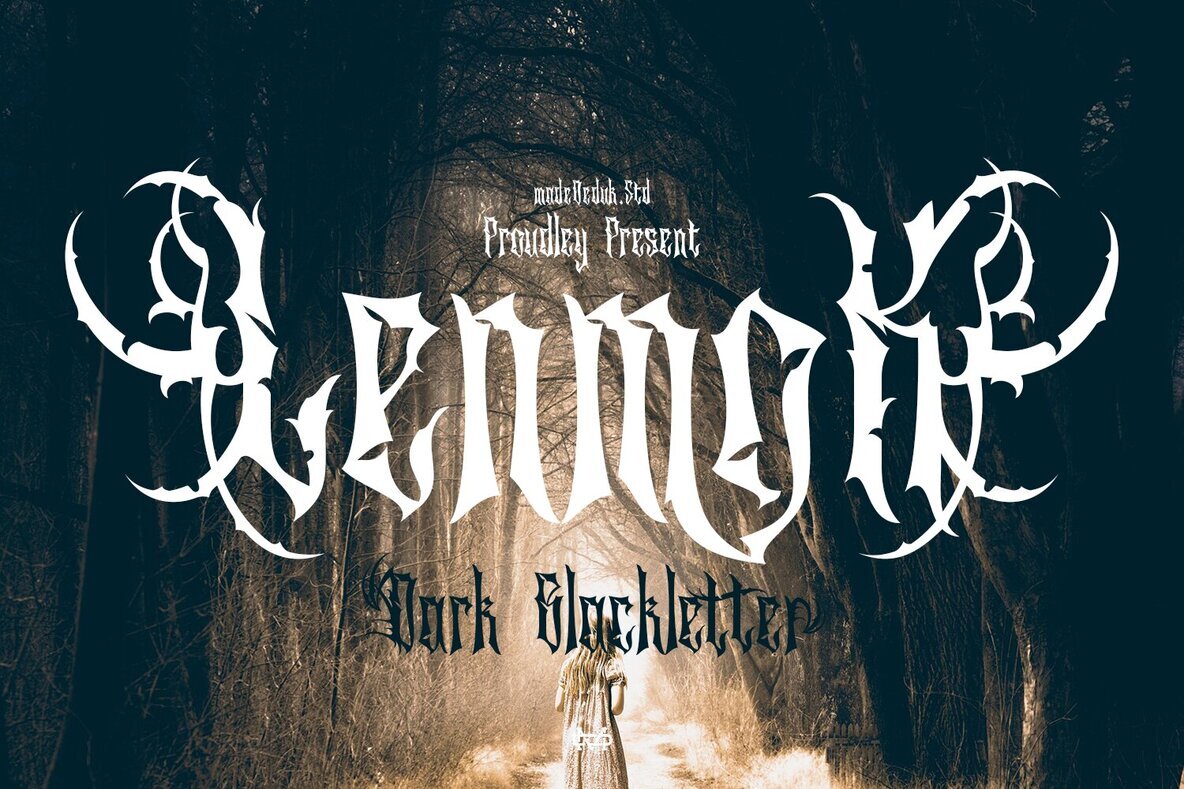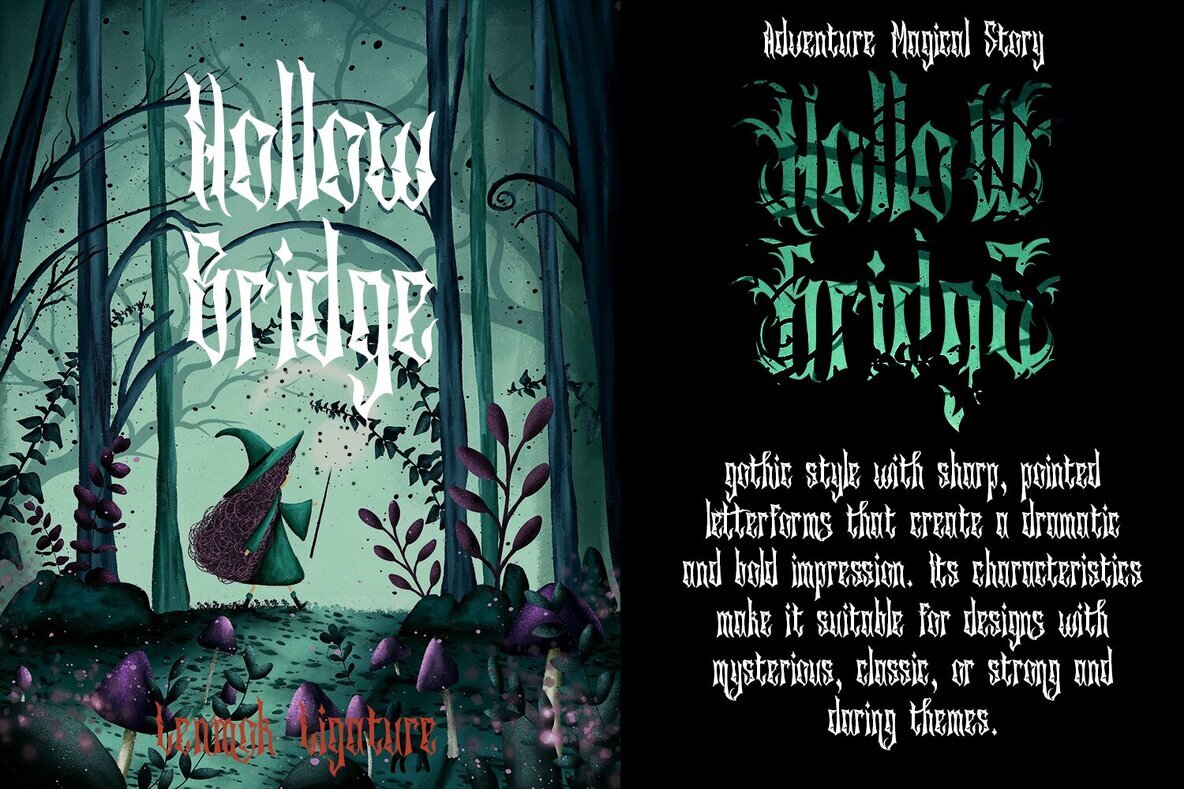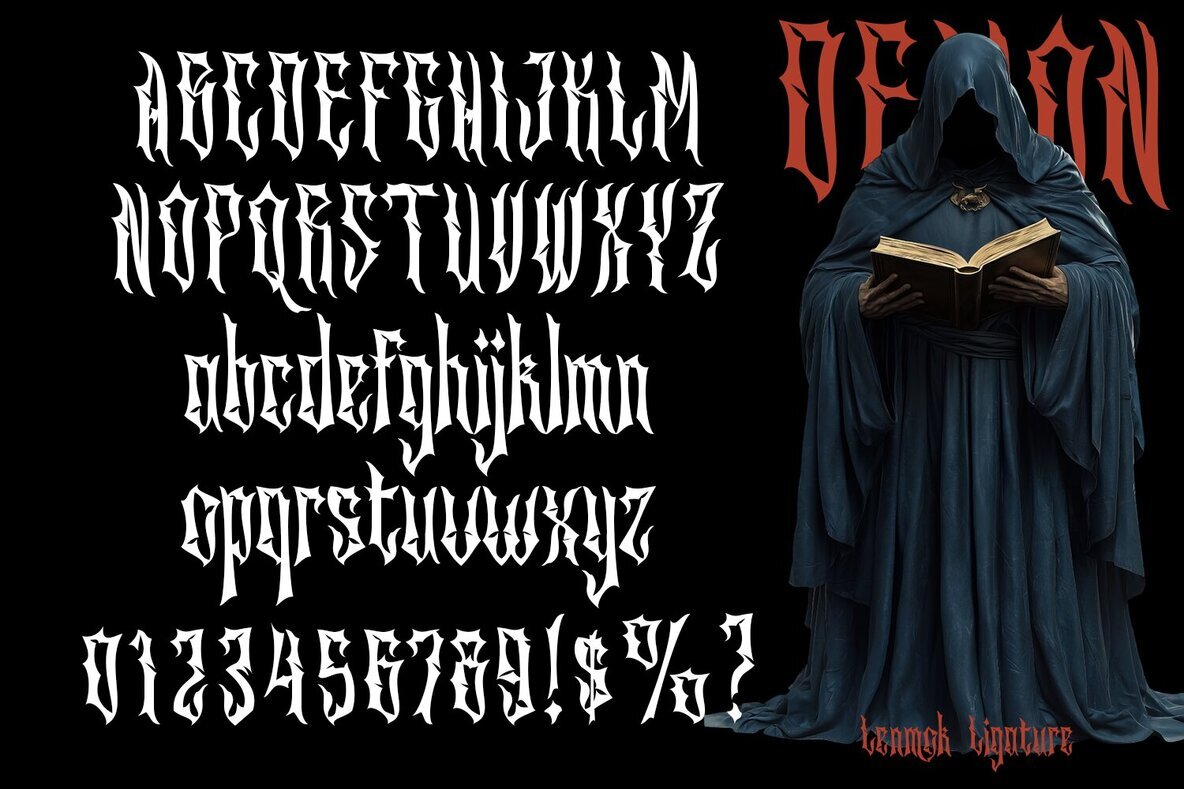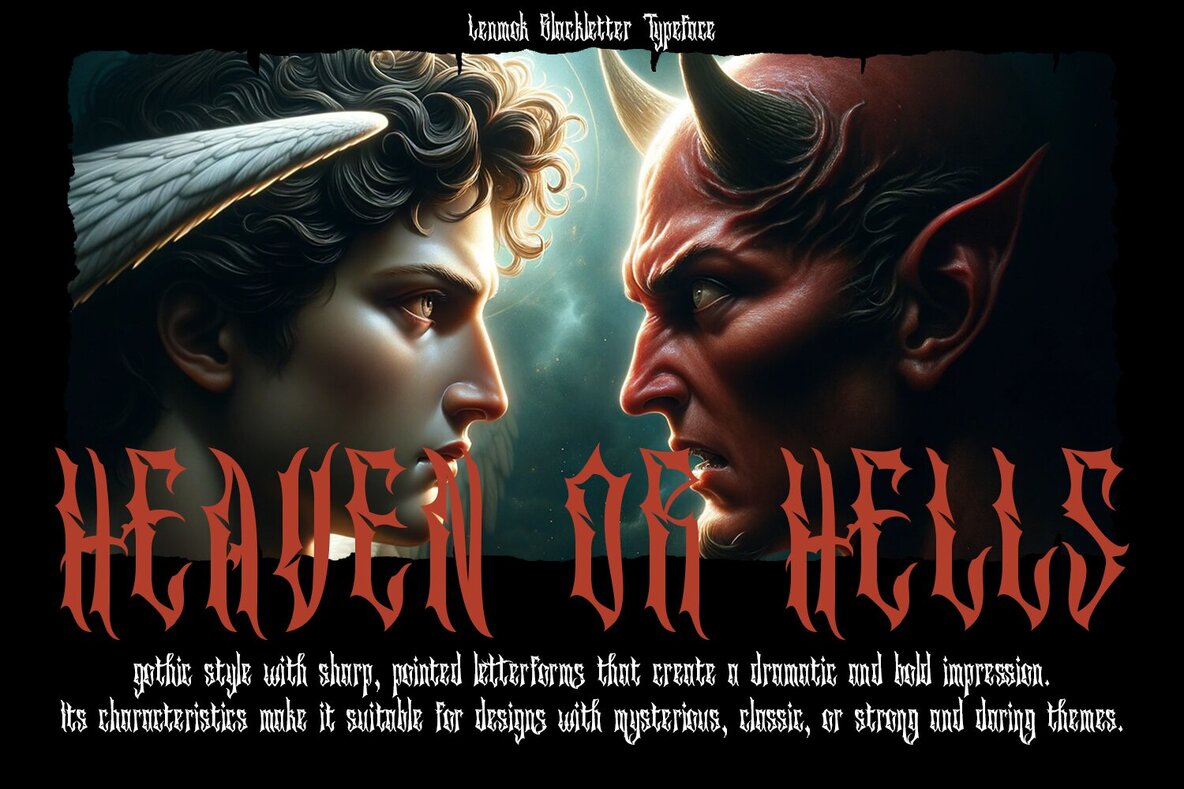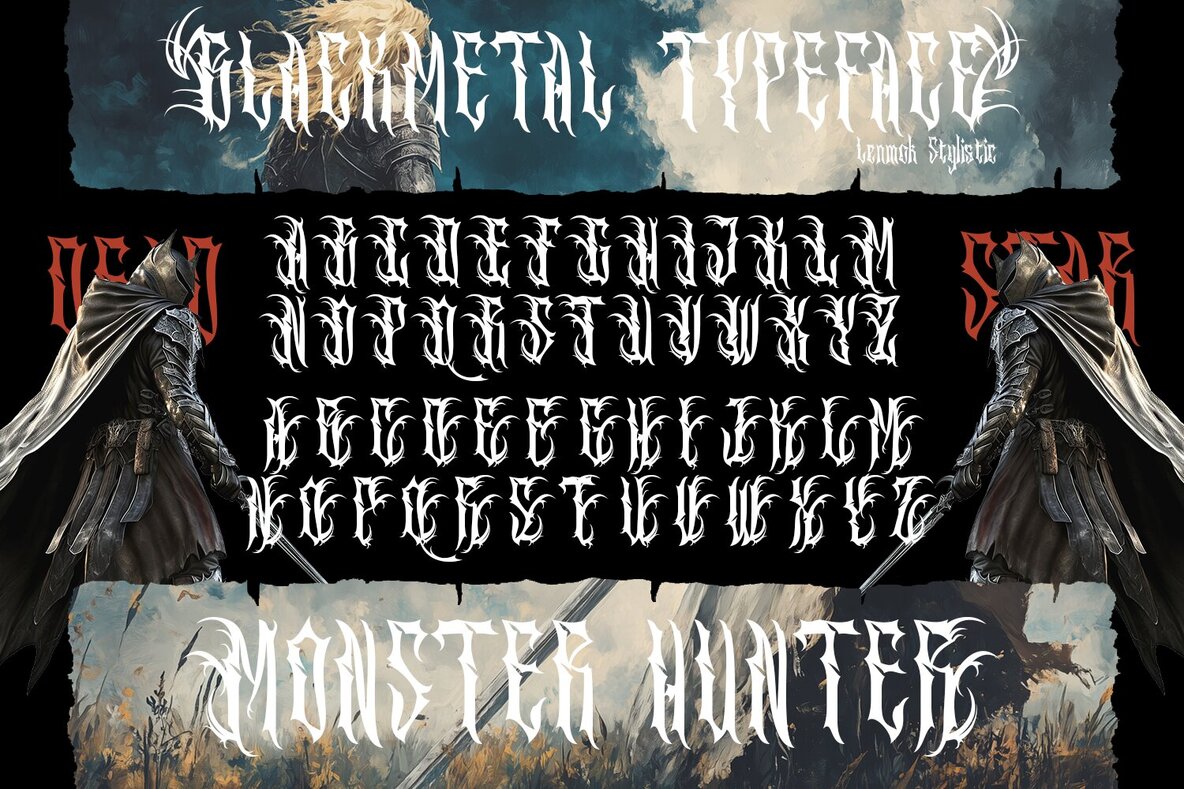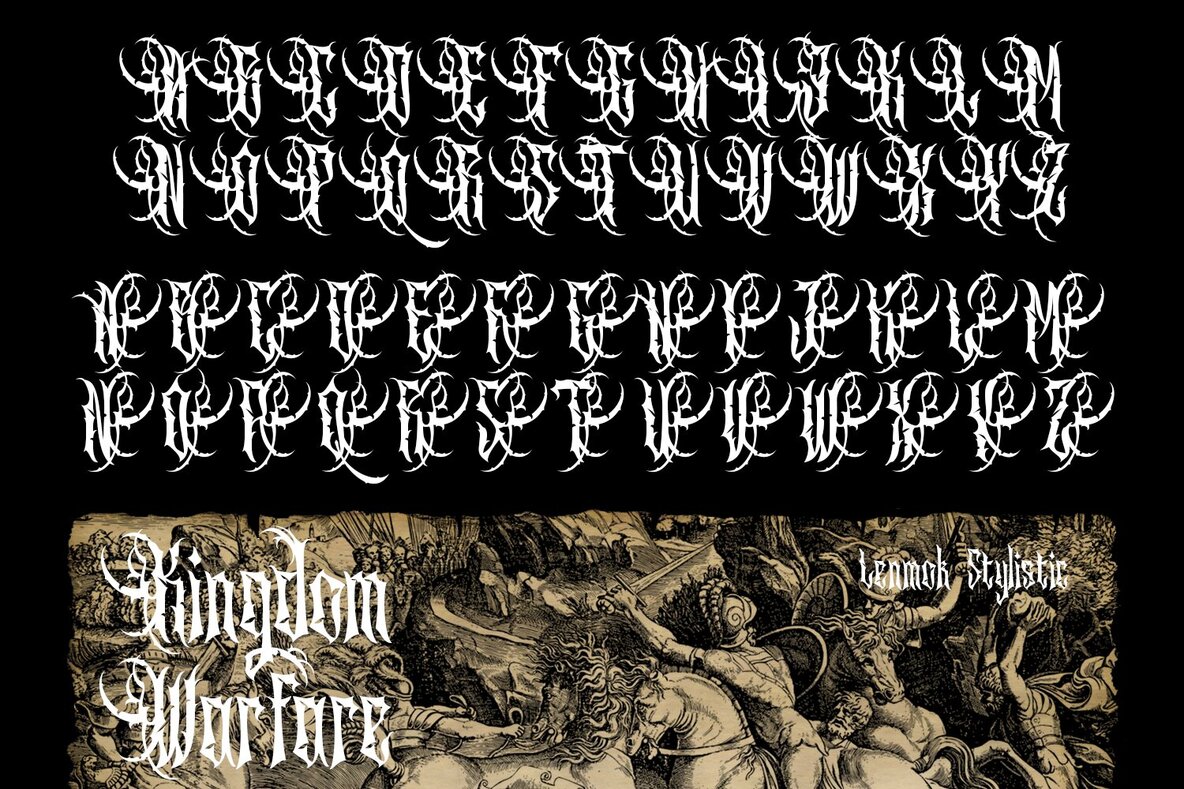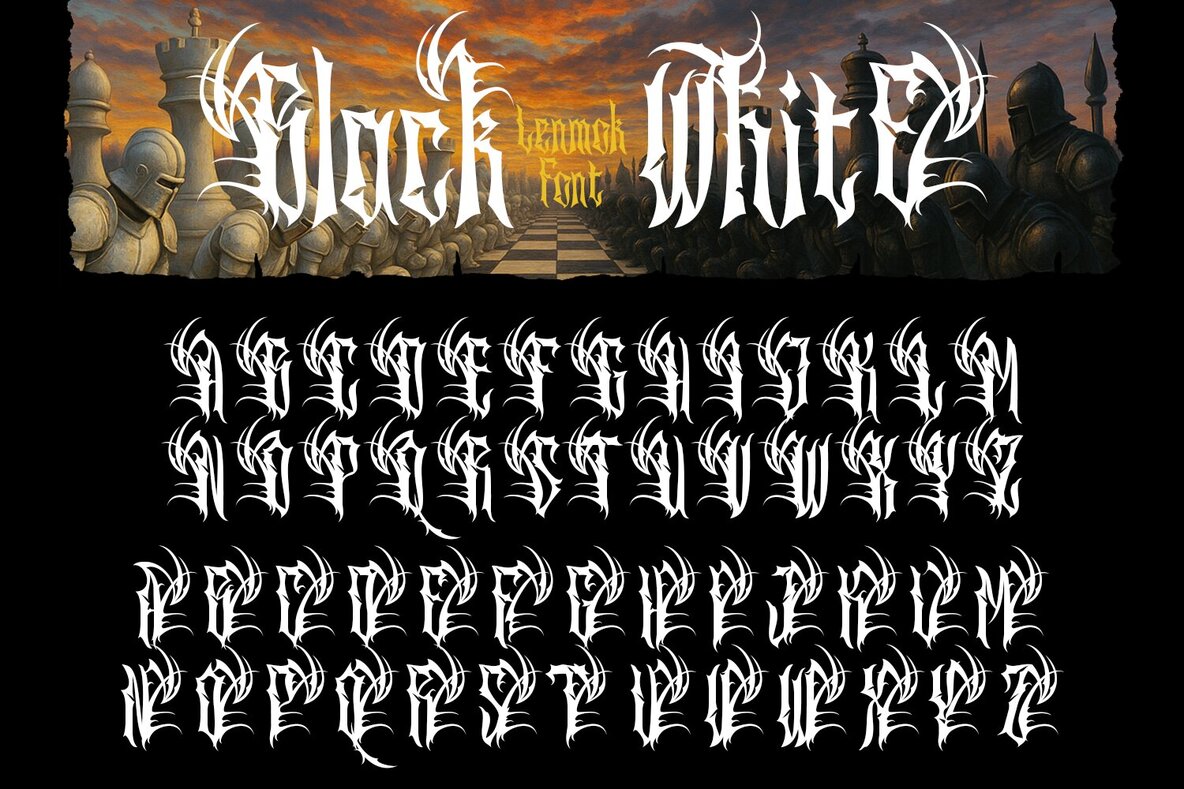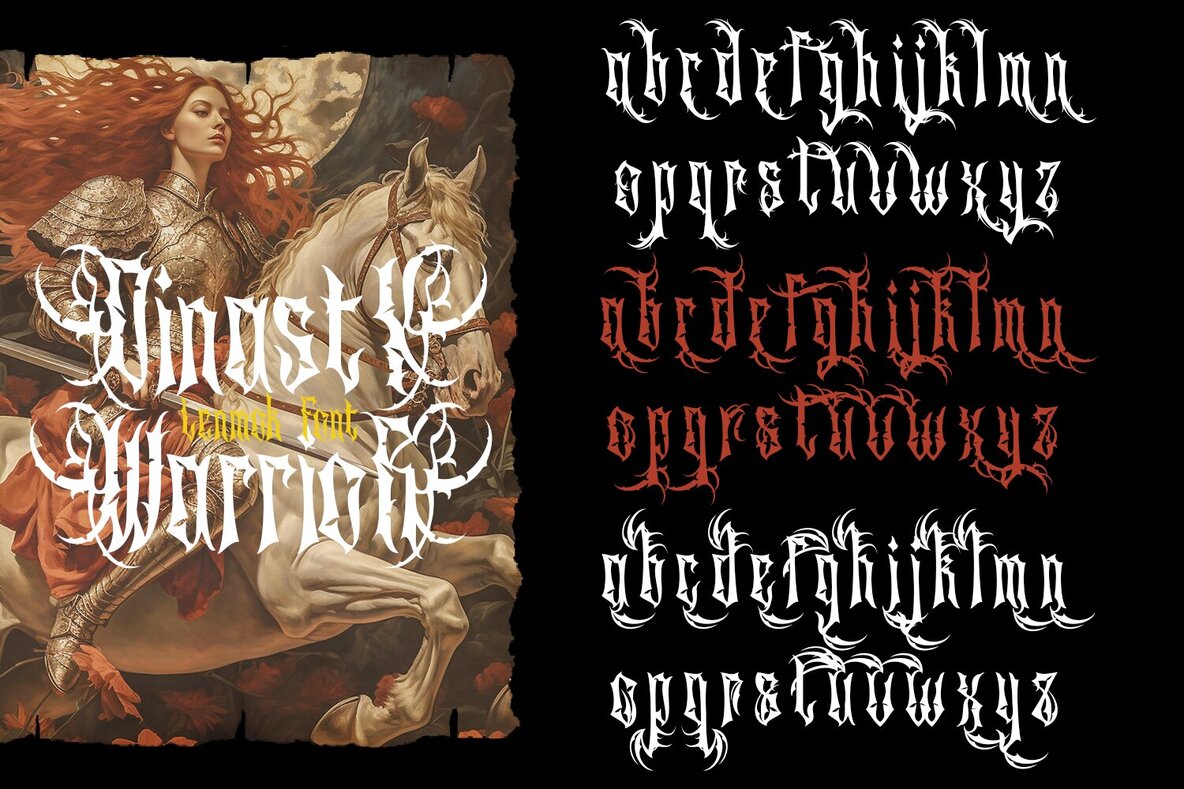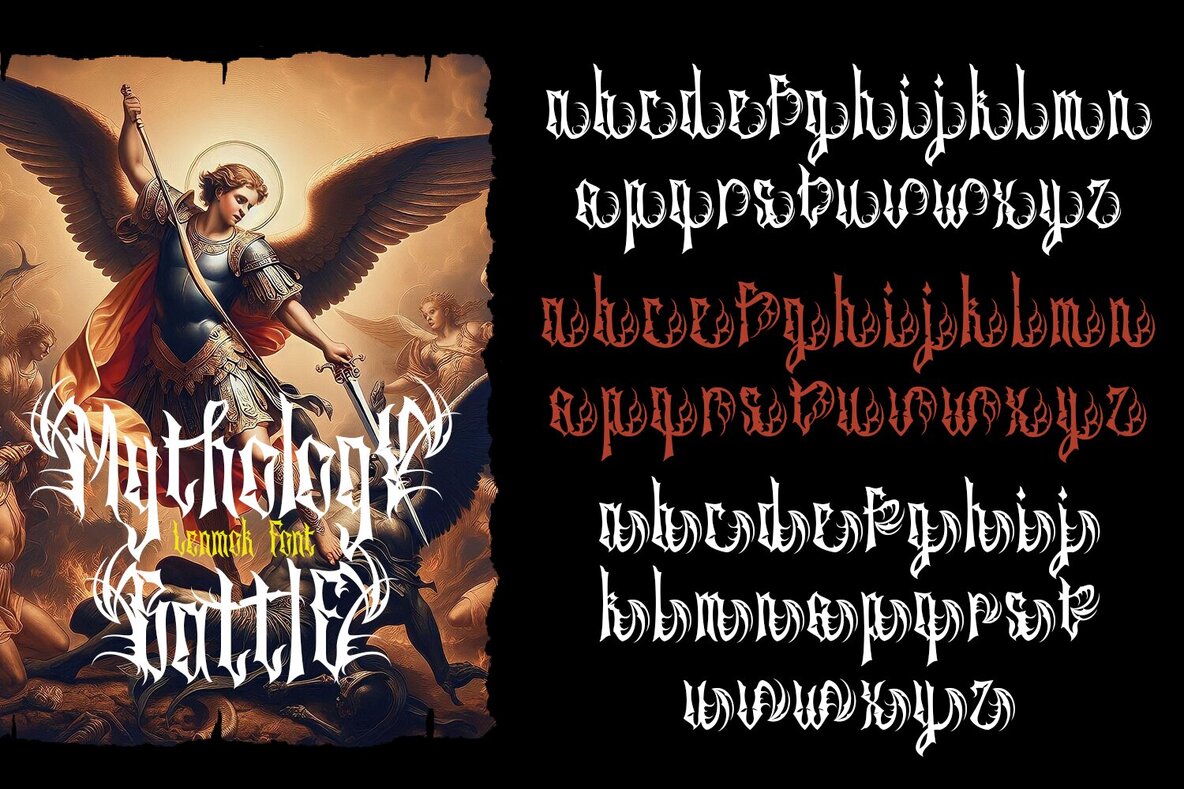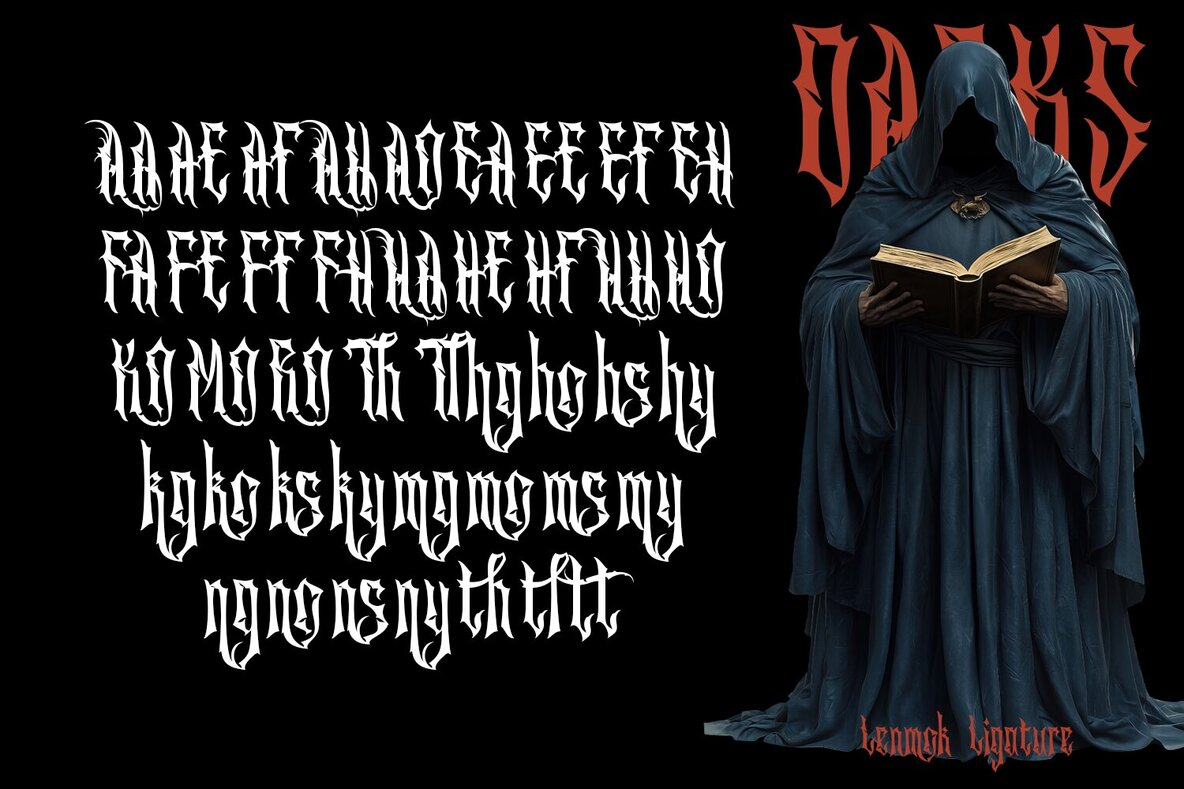
Lenmok Font
Lenmok
Lenmok Blackletter captures the spirit of gothic design with sharp, pointed letterforms that create a bold, attention-grabbing look. This typeface delivers unmistakable drama and sophistication, making it an excellent choice for visual projects that call for mystery, classic elegance, or a commanding aesthetic. Ideal for advertising, digital content, and print materials, Lenmok ensures your message leaves a strong impression. Its distinctive features suit a range of creative applications—from posters and packaging to brand identities and editorial titles—where standing out is essential.Lenmok Blackletter: Dramatic Gothic Typeface